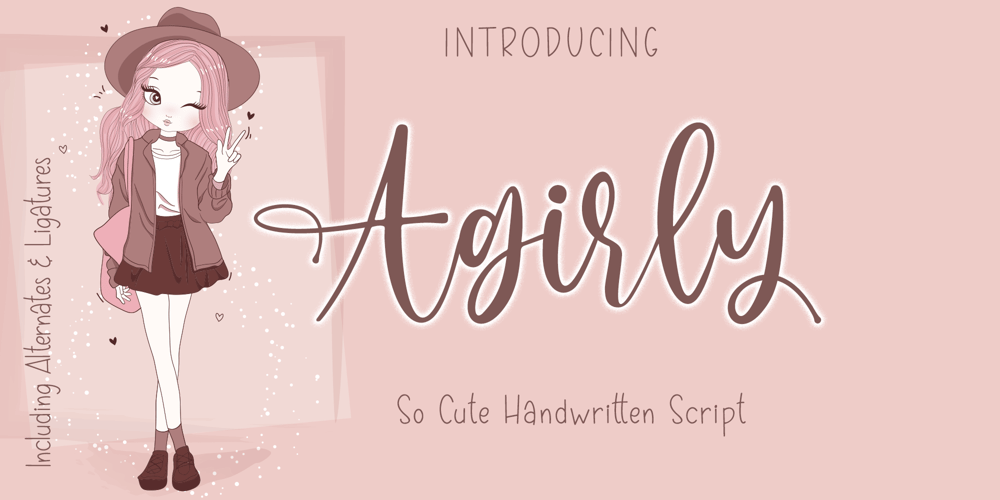
Agirly
Agirly font
Agirly Font Family was designed by Edhi Prayitno and published by Absonstype. Agirly contains 1 styles and family package options. Agirly is a cute script font. Its authentic look will add a personal and realistic feel to your designs. Use this font for your favorite projects and explore its endless possibilities.This font is PUA encoded which means you can access all of the glyphs and swashes with ease!Honestly it works perfectly for headlines, logos, posters, packaging, T-shirts and much more.Recommended to use in Adobe Illustrator or Adobe Photoshop with opentype feature.Ligatures feature is default setting in Adobe Illustrator or Adobe Photoshop in Uppercase character. So when you want not to use the ligatures.Open glyphs panel : In Adobe Photoshop choose tool Window >> Character and then please click fi symbol In Adobe Illustrator choose tool Window >> Type >> Open Type and then please click fi symbol How to access Alternates Character?Open glyphs panel : In Adobe Photoshop choose tool Window glyphs In Adobe Illustrator choose tool Type glyphs If you have questions, just send me a message and I’m glad to help.Have a great day,Absonstype